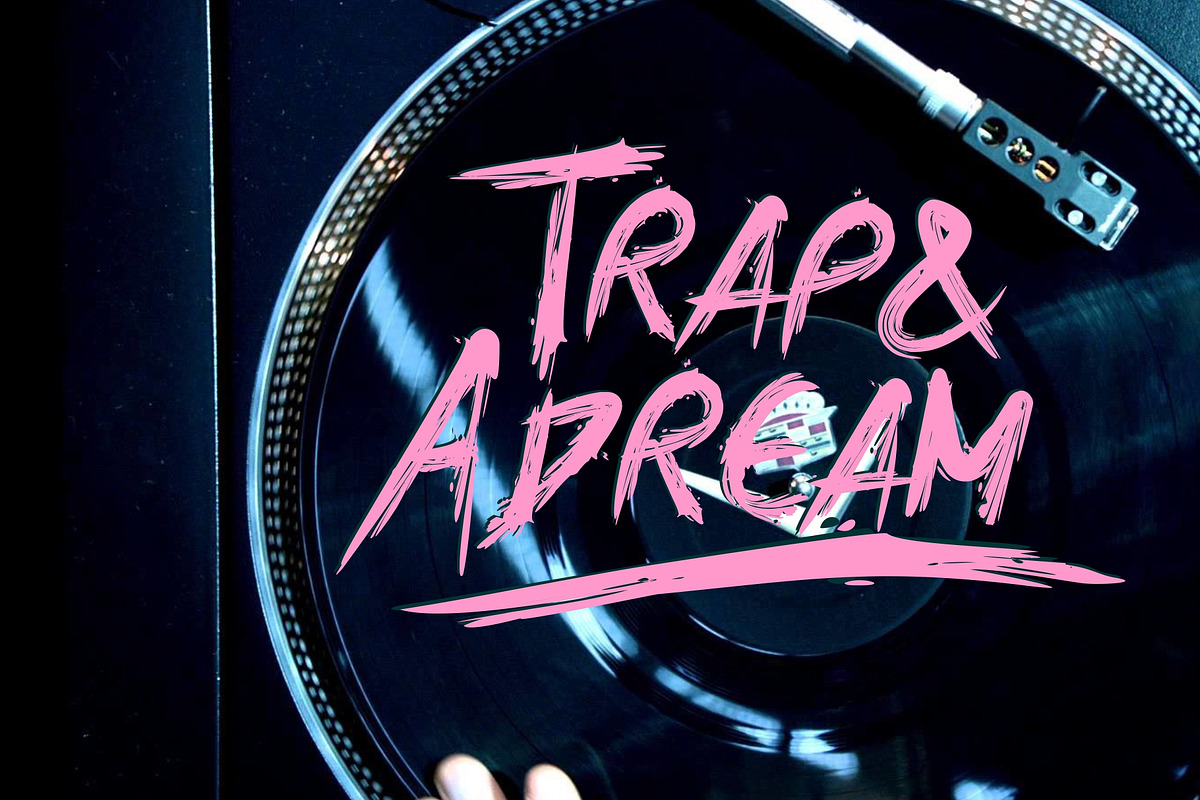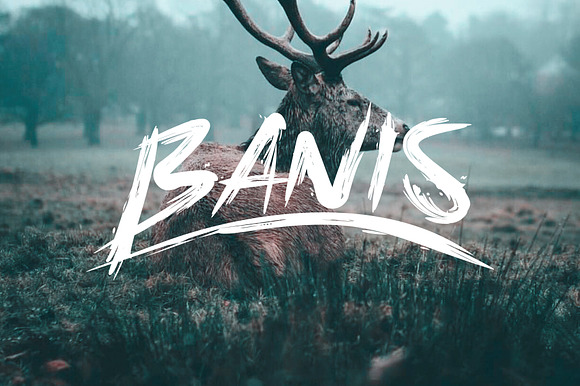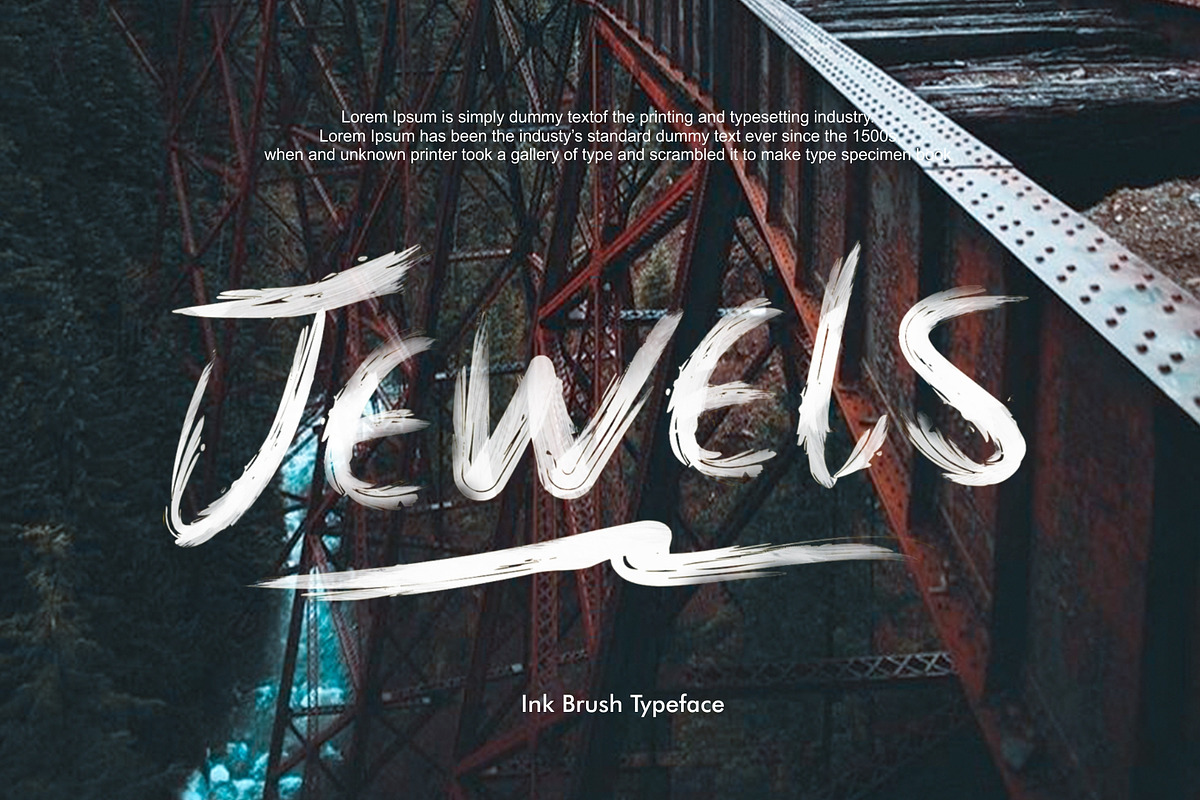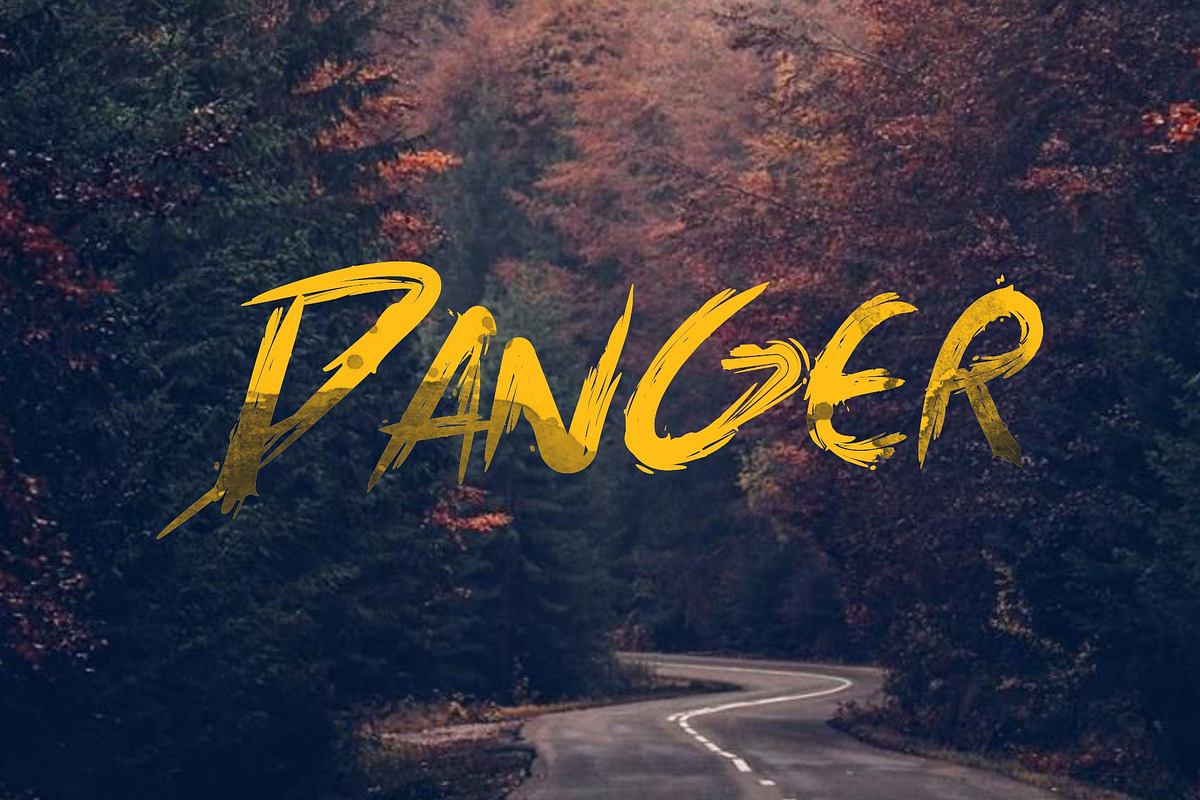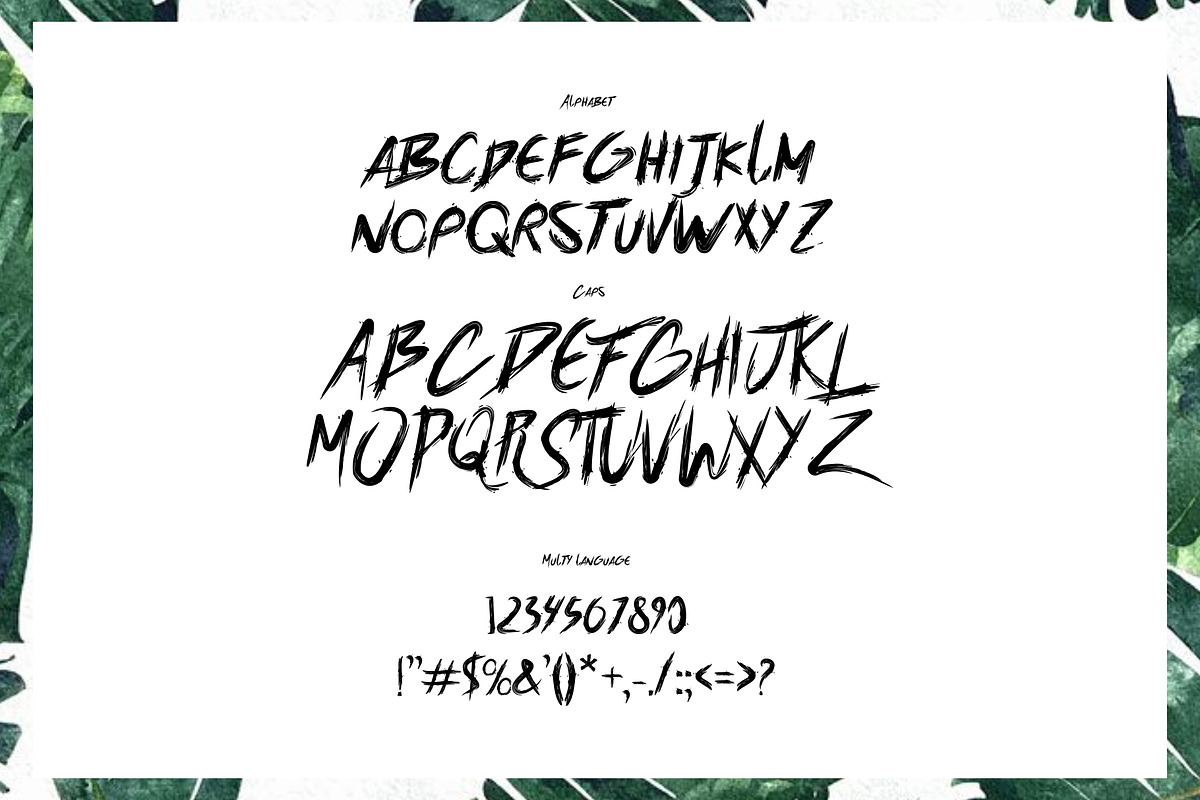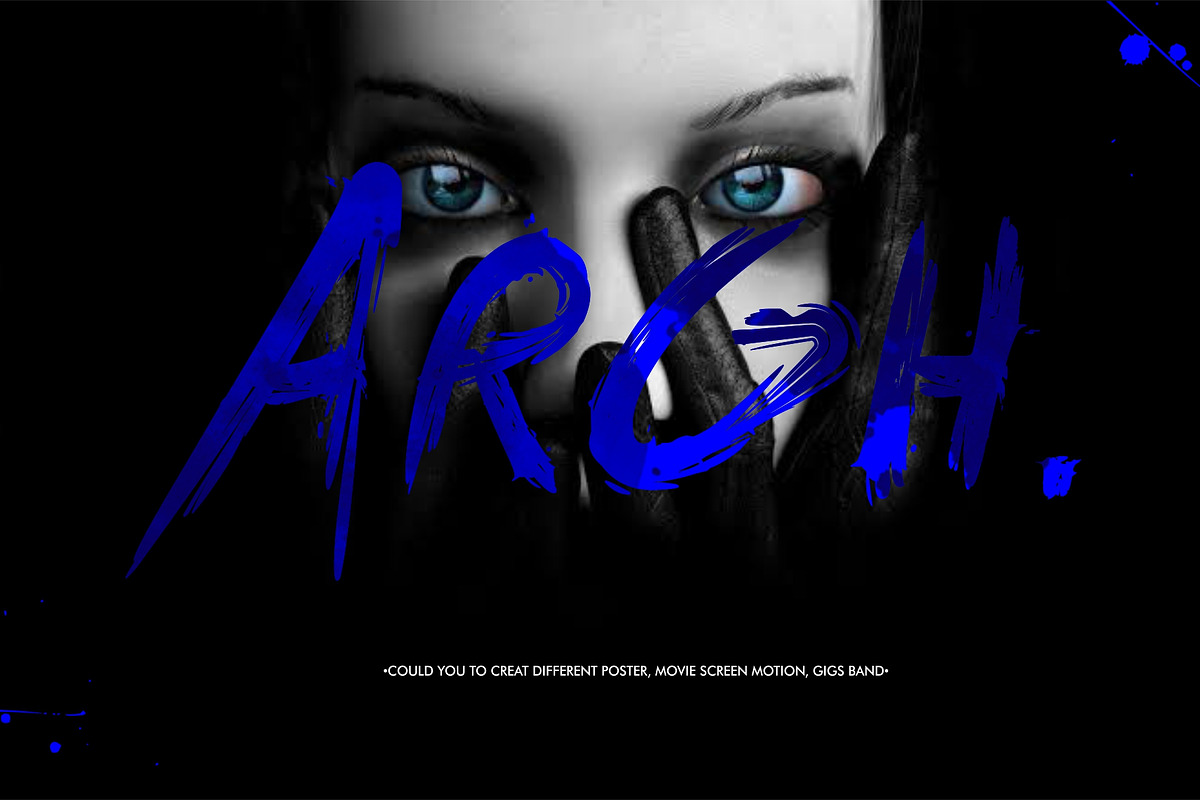
Banis Bush Font
Banis Typeface is perfeccly suited to stationery, poster, product packaging, album cover, movie poster & much more
Banis Bush Font by Maxim apperian fits naturally into Branding, posters, packaging, typography.